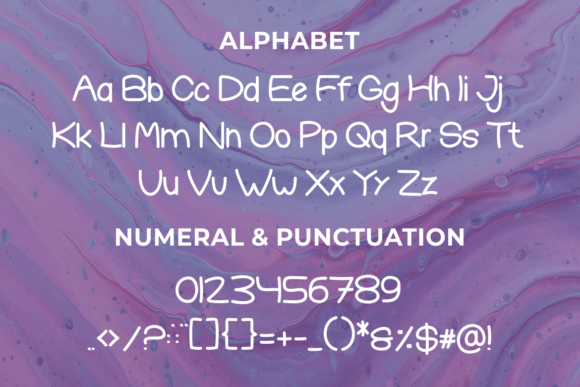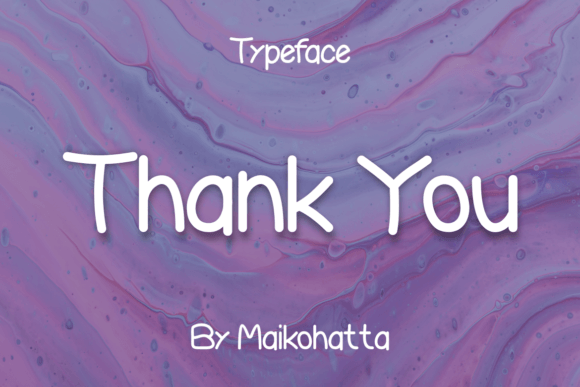
Introduction to Simili Font
Remember the moment when you’re working on a creative project, and you can’t seem to find the perfect font to match your vision? The frustration is real, but with the introduction of our new Simili Font, those days are behind you. This modern display font is designed to be bold, authentic, and versatile, making it the perfect design resource for any branding project.
Whether you’re a seasoned designer or just starting out, Simili Font is a valuable addition to your toolkit. Its high-quality design ensures that your work stands out in a wide range of contexts, from logo designs to t-shirt printing and esports branding. And the best part? Simili Font is available in a range of formats, including OTF, TTF, and transparent background options.
Key Features of Simili Font
- High-quality design resource with a unique, creative aesthetic, perfect for various projects.
- Features a transparent background, allowing for seamless integration with any design or background.
- Comes in a single size, but is highly scalable to accommodate various design needs and resolutions.
- Unique characteristics include intricate details and subtle nuances that add depth to any design project.
Honest Review: Simili Font
I recently had the chance to work with the Simili Font, and I must say, it’s been a game-changer for my creative project. The high quality and unique design make it stand out from other fonts in the market.
- ✨ Unique and elegant design
- ✨ High quality and crisp typography
- ⚠️ Limited font styles available
- ⚠️ Not suitable for very small font sizes
Overall, I’m really impressed with the Simili Font. It’s a great addition to any design resource library, and I would definitely recommend it to fellow designers. With a little creativity, the limitations can be easily overcome, and the results are well worth the effort.
Simili Font
Simili Font is ideal for creating eye-catching headings and titles. It can also be used for body text in creative projects, such as brochures, posters, and websites. The transparent background feature makes it easy to use in designs that require a seamless look.
The Simili Font is a TrueType font, which is a widely-supported font format that can be used in most design software. It includes a comprehensive character set, including uppercase and lowercase letters, numbers, and punctuation. The font also includes a range of language support, making it suitable for use in a variety of languages and creative projects.